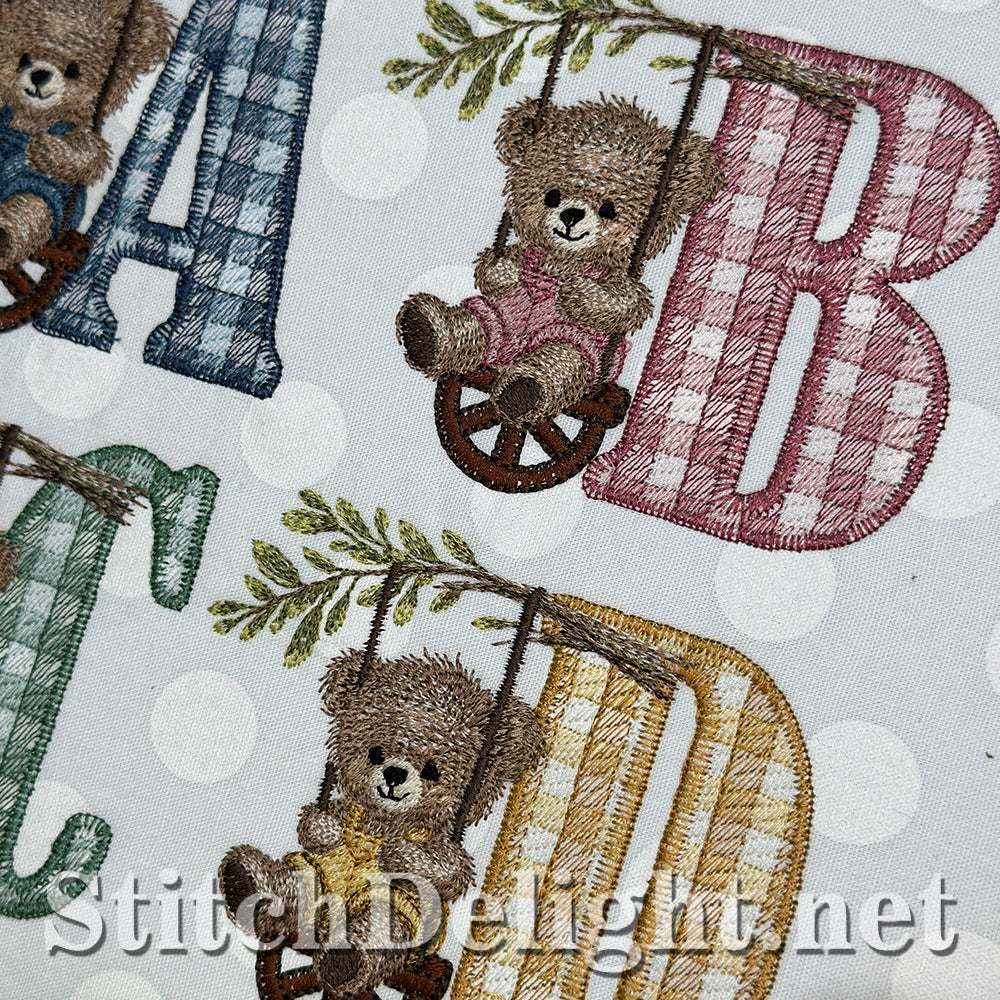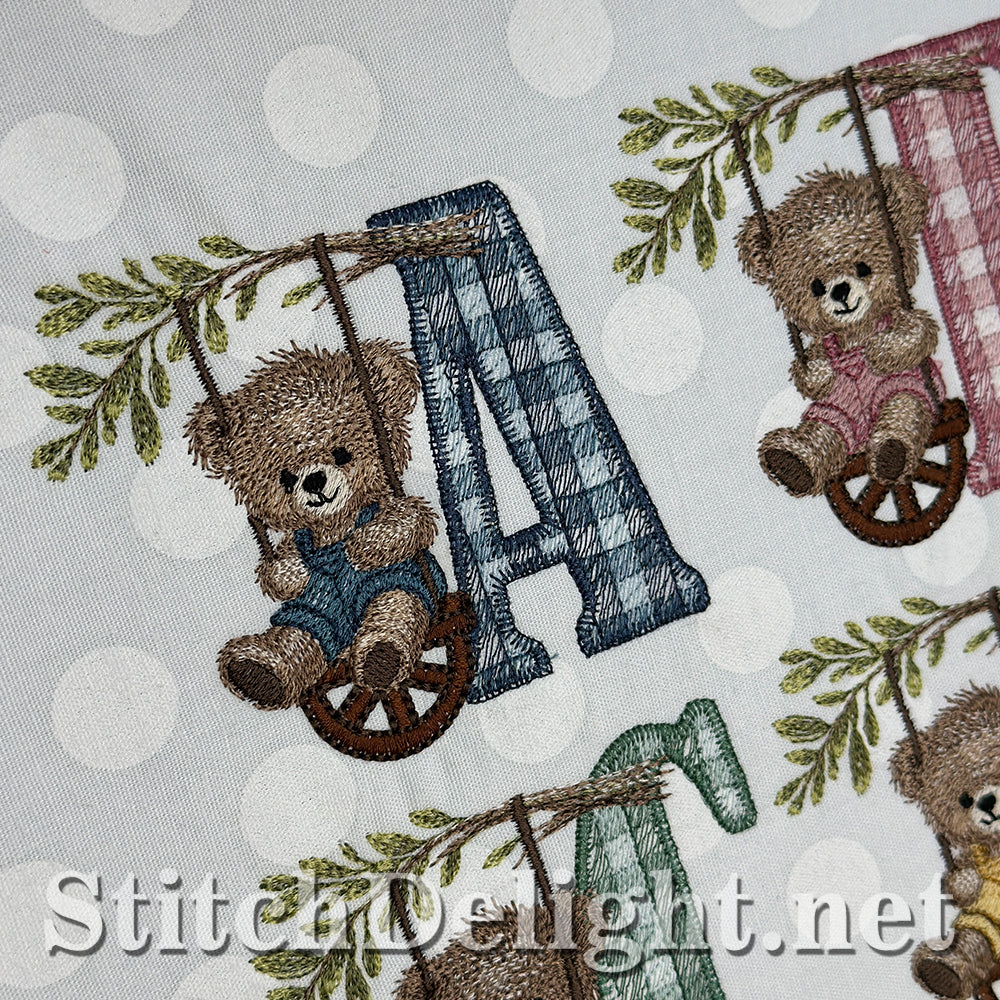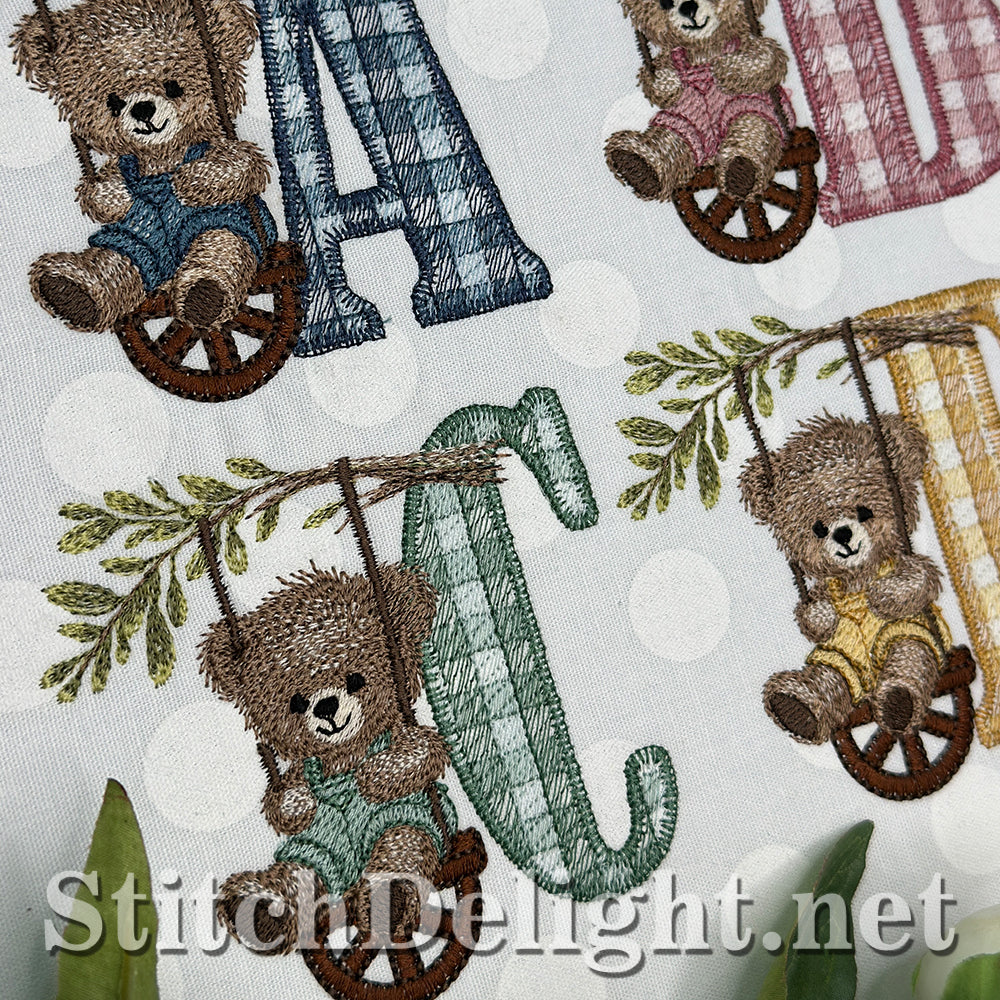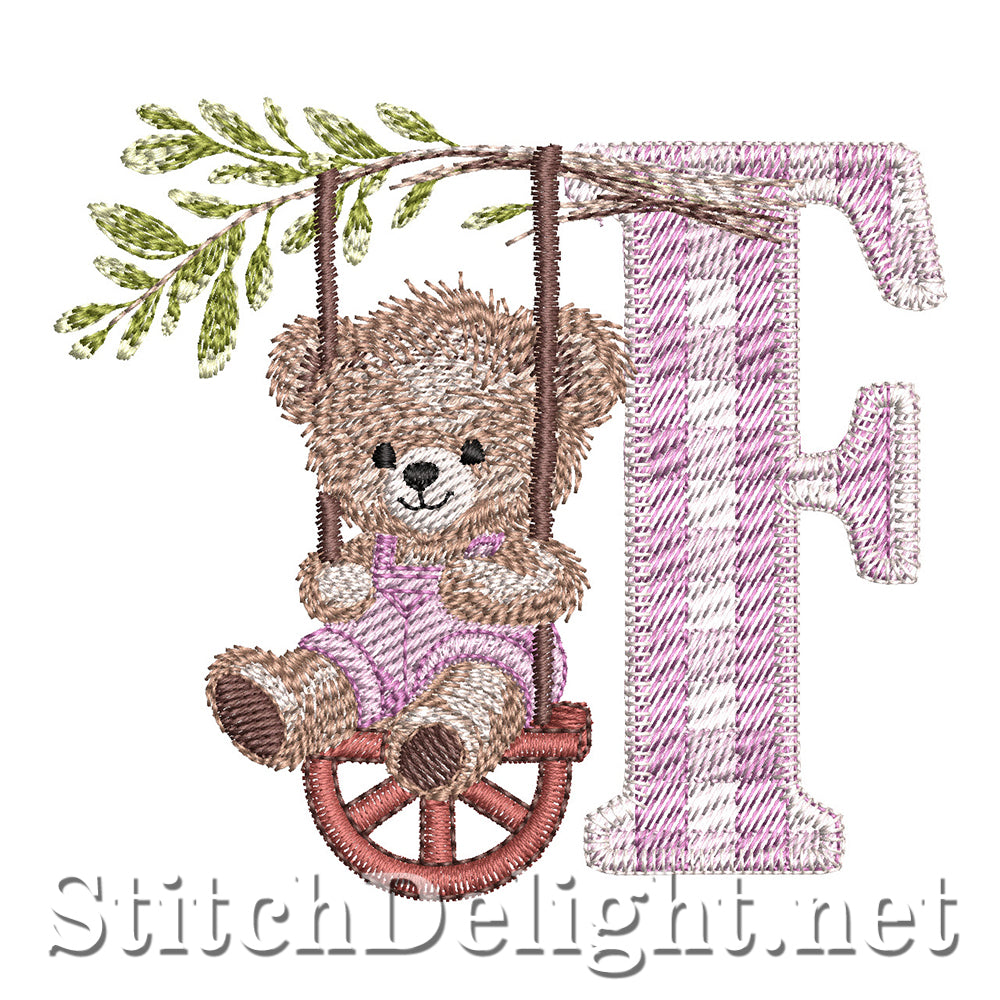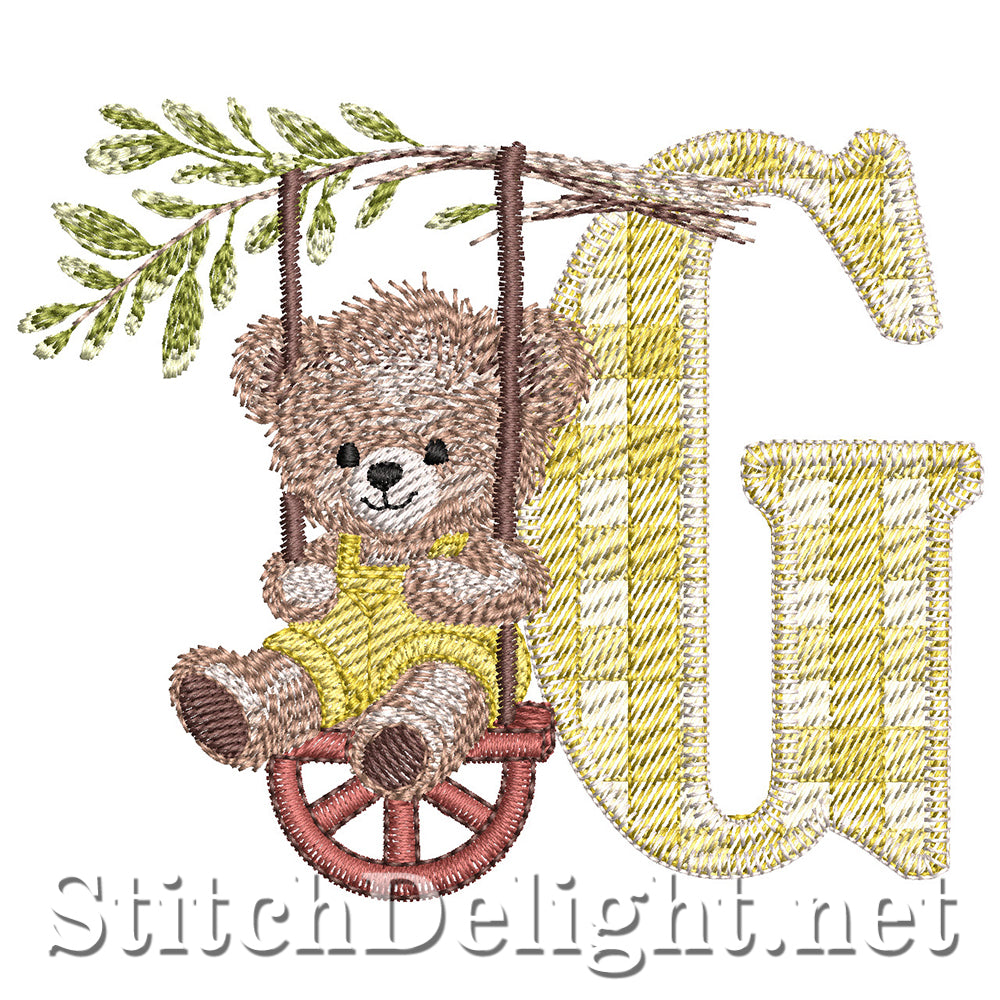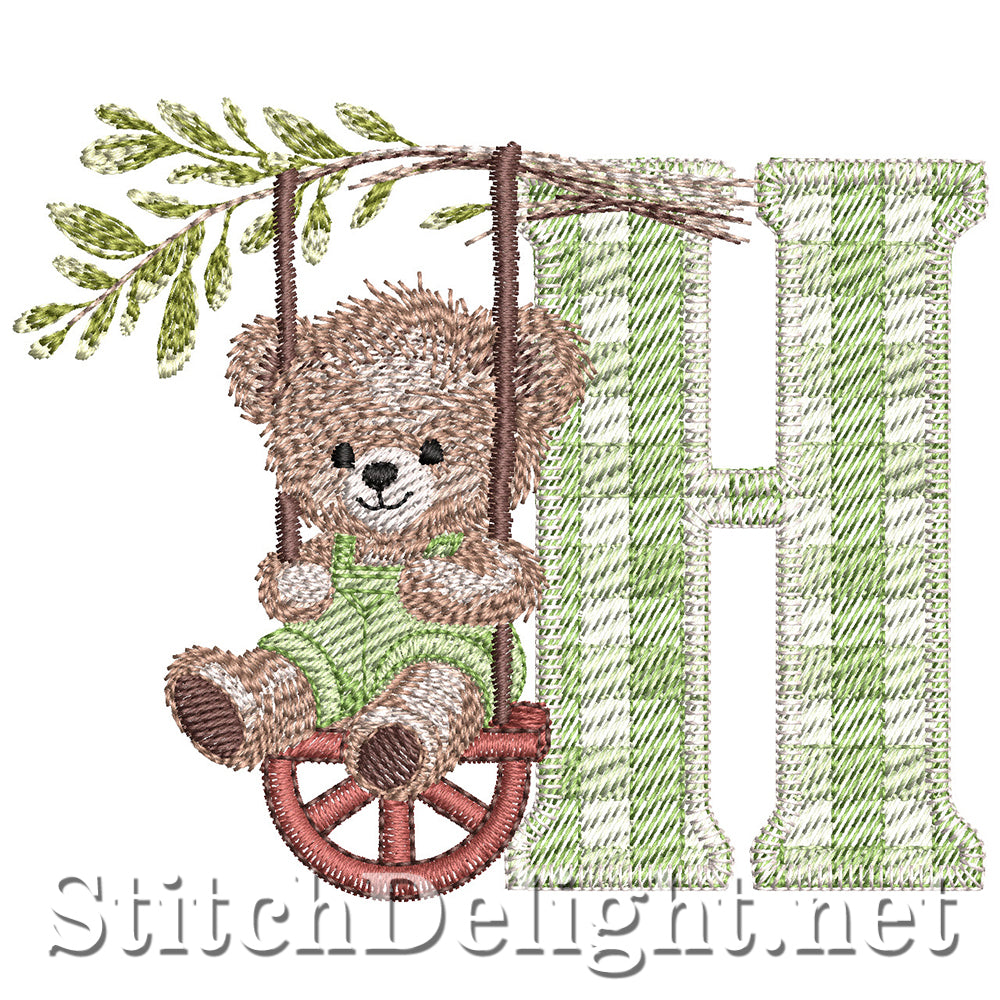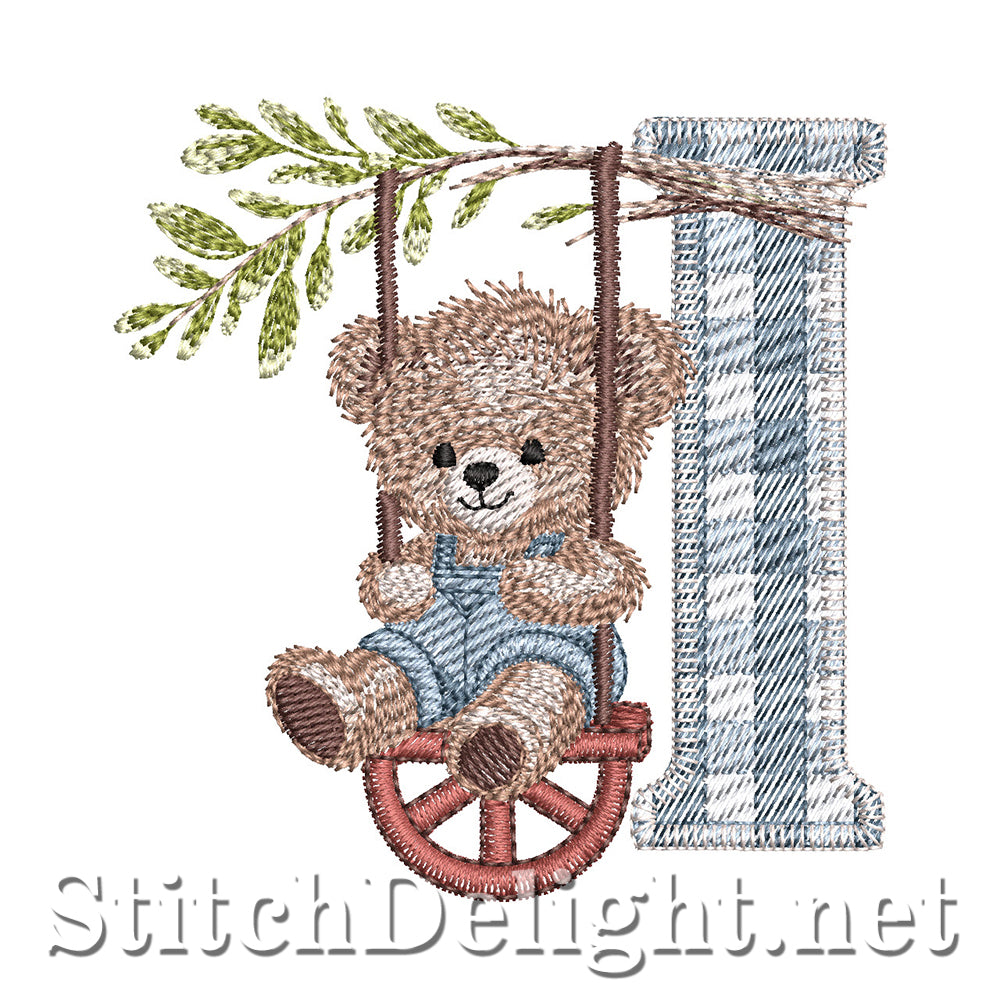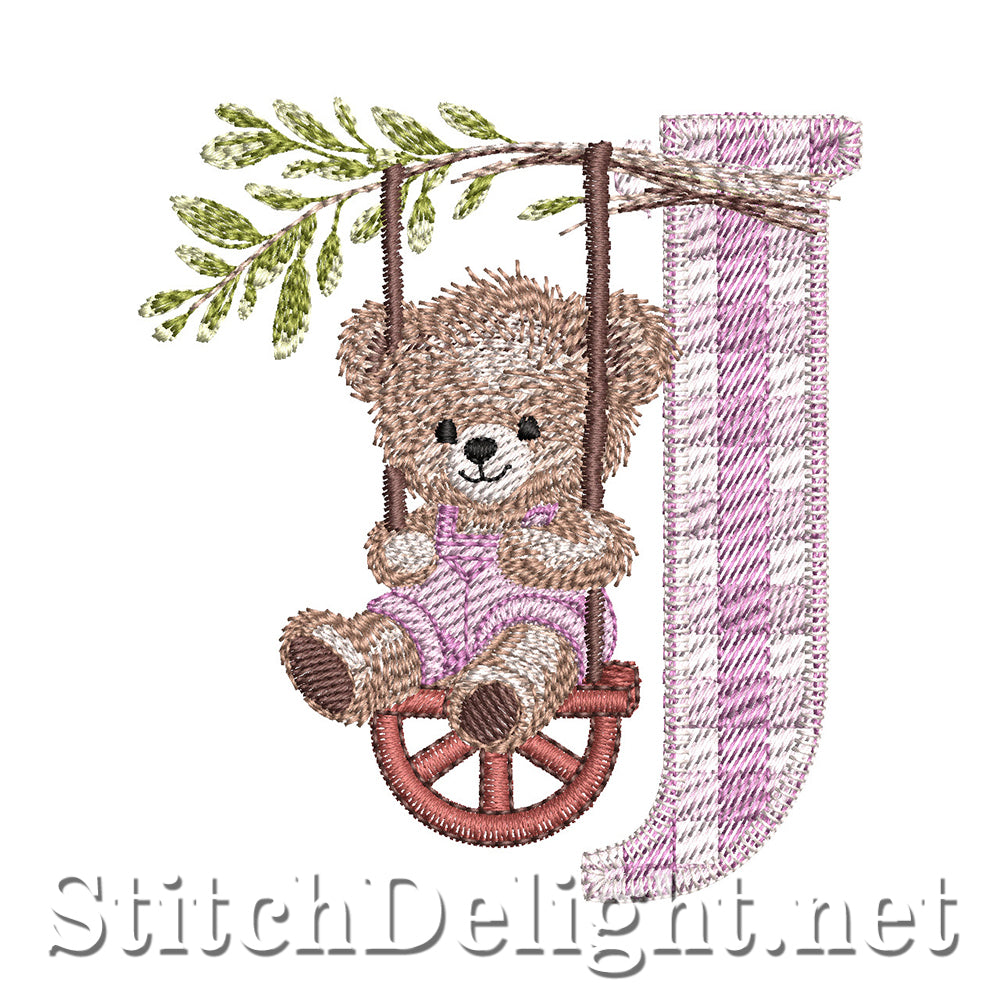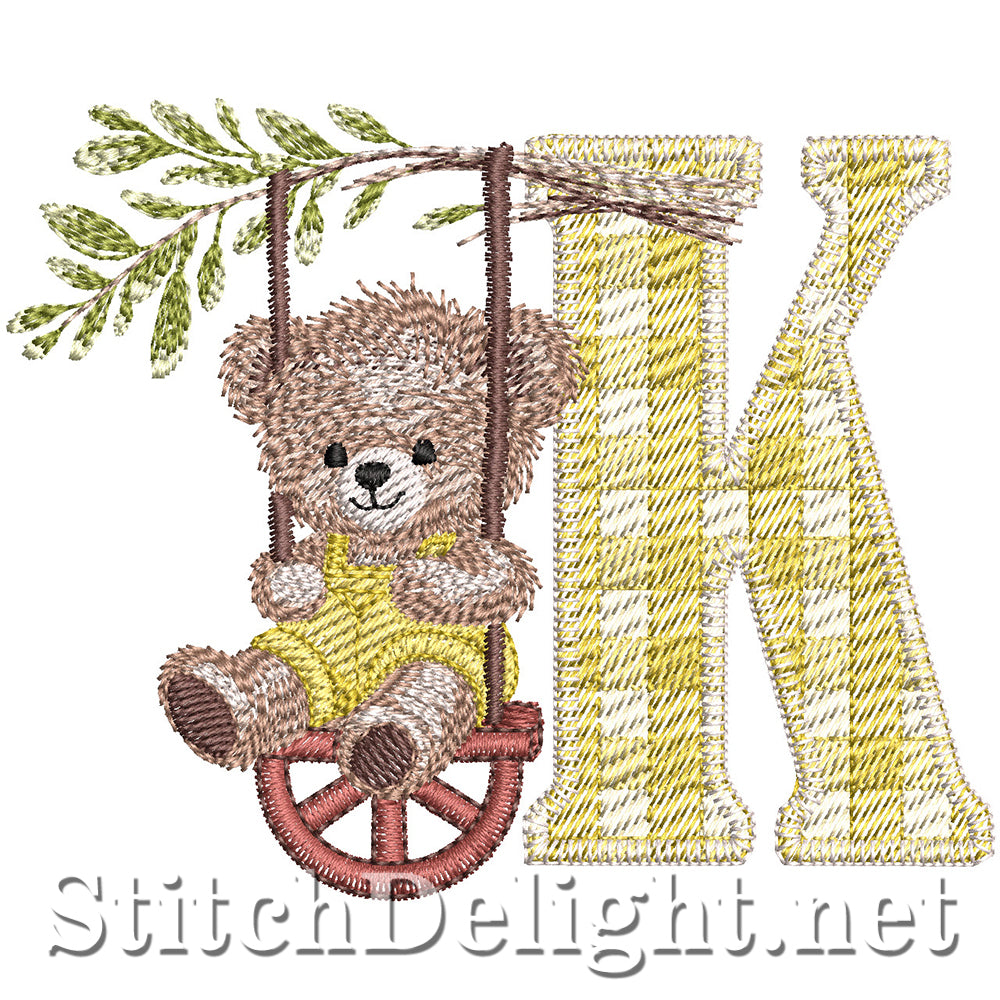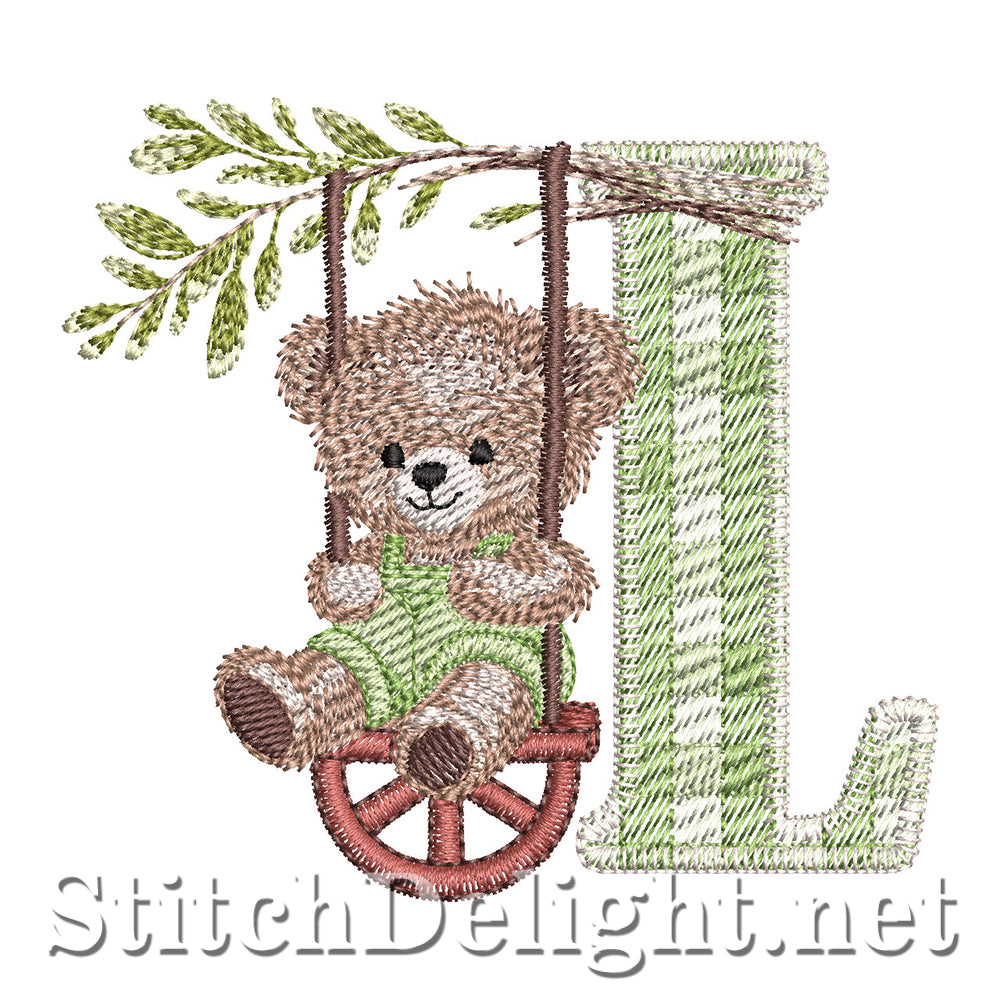
Country Teddy font is our collectors font for June 2025 it features this adorable teddy swinging on a tree with gingham letters with a letter height of average height of just over 3" making it ideal for your 4x4" hoop.